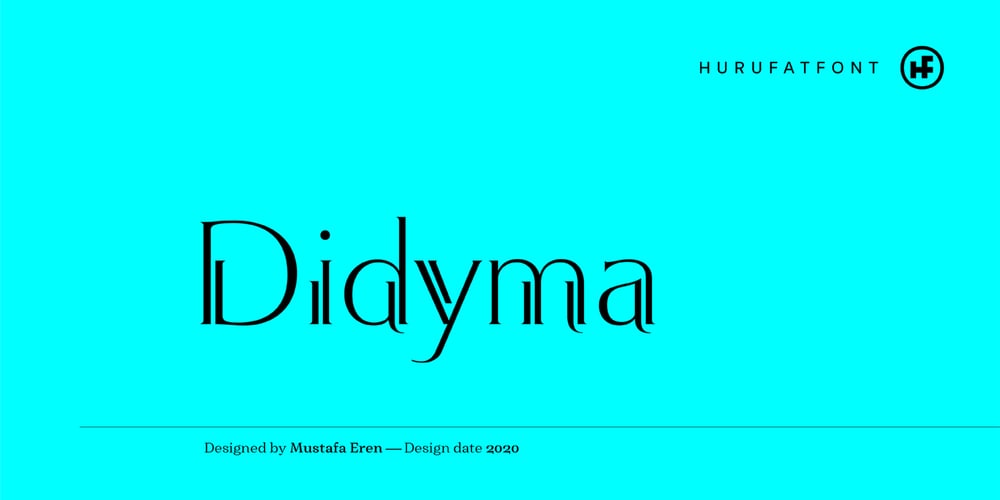
Didyma
Didyma font
Didyma Font Family was designed by Mustafa Eren and published by Hurufatfont. Didyma contains 1 styles and family package options. Didyma display font has at the same time an entertaining appearance with its double-line structure and a luxurious feeling with its sharp and fluid serif structure.Didyma offers designers creative alternatives to create brands, packaging and titles.